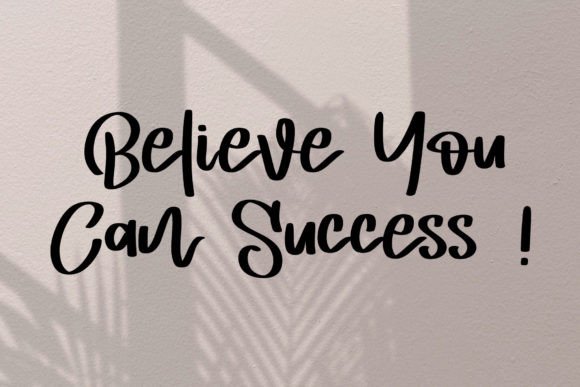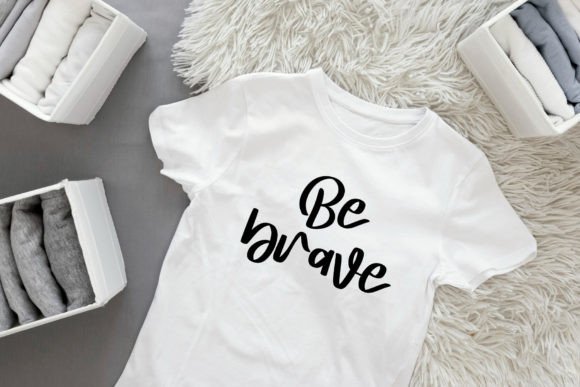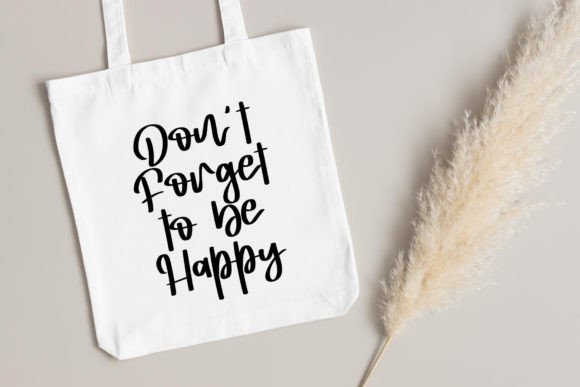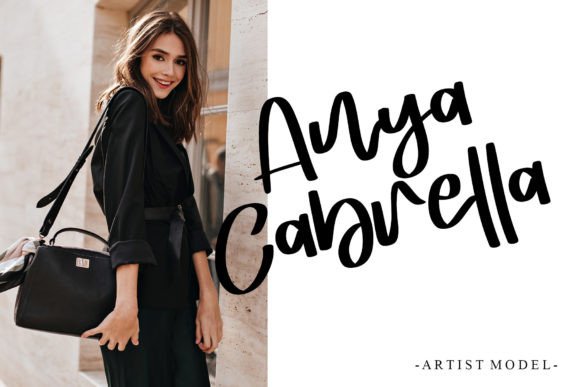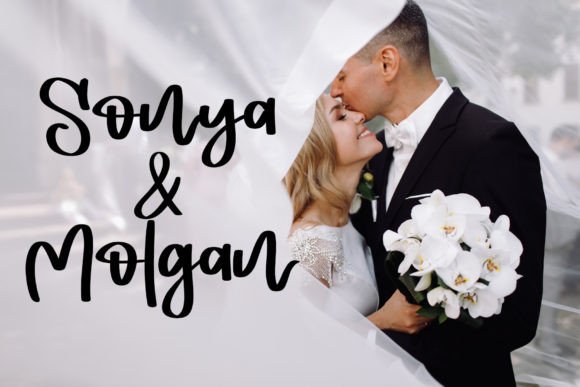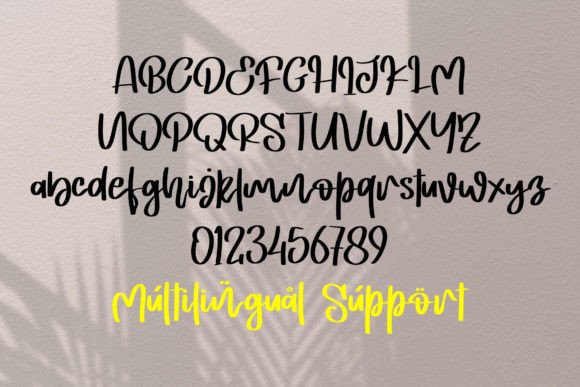
Introduction to Jordan Smith Font
Jordan Smith is a simple and quirky handwritten font.
It has a classy, elegant, and modern look that you can use for logos, branding, invitations, stationery, wedding designs, social media posts, and much more .